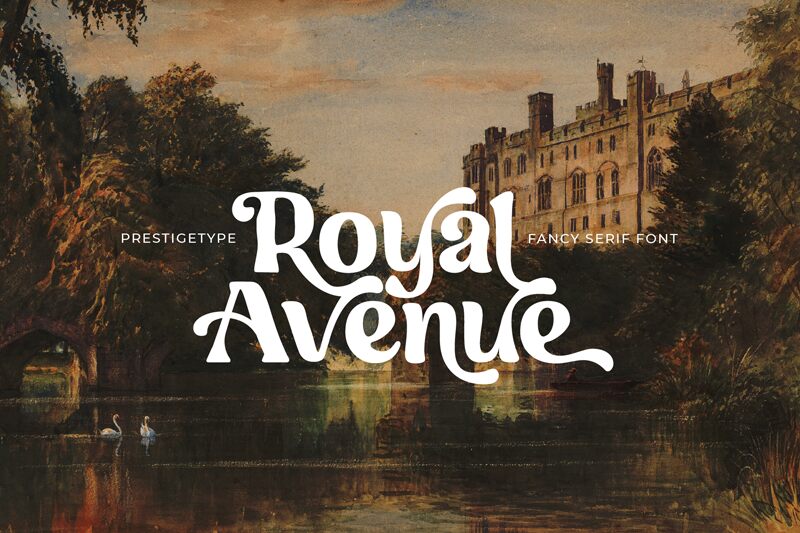
Royal Avenue font designed by Prestigetype is a nostalgic Retro Display font that sends you whirling through the decades. It brings you back to a time when bold and compelling typography was the order of the day. Packed with true retro character charm, situational flexibility, and OpenType magic (alternates and ligatures) –– it's ready to say hello to modern projects in search of timeless flair.
With key design elements like newspapers, magazines, quotes, food advertising, logo designs or just adding a touch mid-century class at any occasion - Royal Avenue Big Wave takes things beautifully ‘back’ while still staying trendy graphic looks today!